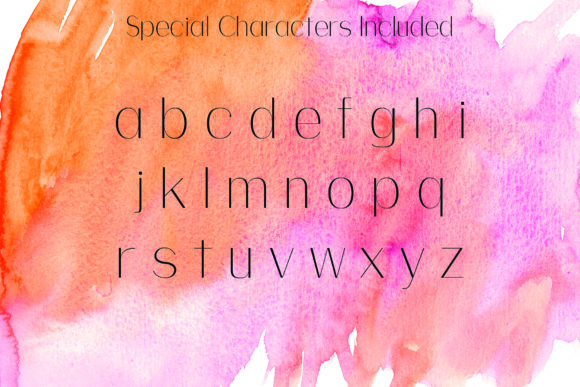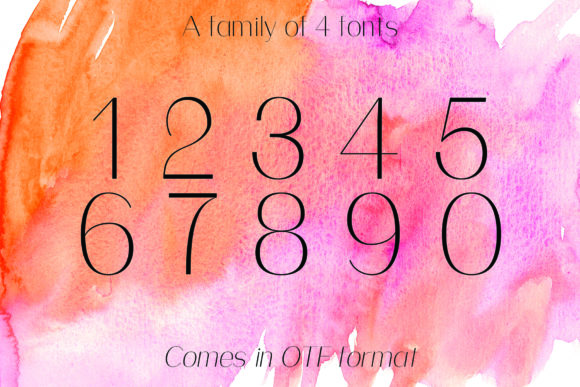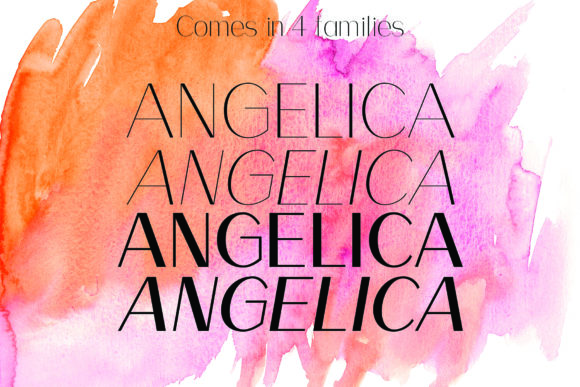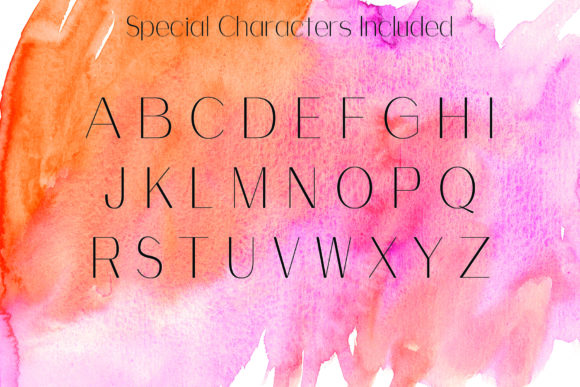
Discover the Elegance of Angelica Font: A Modern Design Essential
In the world of typography, few fonts manage to strike a balance between simplicity and elegance as effortlessly as Angelica Font. This modern font has been making waves in the design community for its clean lines, sophisticated look, and versatility. Whether you’re a professional designer working on a high-profile project or a crafter looking to add a touch of class to your DIY endeavors, Angelica Font is an excellent choice. In this article, we’ll delve into the characteristics that make Angelica Font stand out and explore how it can elevate your design projects.
The Essence of Angelica Font
Angelica Font is characterized by its simple yet elegant design. It embodies a modern style that is both cool and approachable, making it perfect for a wide range of applications. From digital media to print, Angelica Font brings a level of sophistication that can enhance any design project. Its clean lines and uncluttered appearance make it highly legible, ensuring that your message is conveyed clearly and effectively.
Key Features of Angelica Font
- Modern Aesthetic: Angelica Font boasts a contemporary look that fits well with current design trends. Its sleek and streamlined design makes it an excellent choice for projects that require a modern touch.
- Versatility: One of the standout features of Angelica Font is its versatility. It can be used in a variety of contexts, from headings and titles to body text, without losing its impact or readability.
- Elegance: Despite its simplicity, Angelica Font exudes elegance. Its refined appearance makes it suitable for projects that demand a high level of sophistication, such as luxury branding or high-end product packaging.
- Legibility: The font’s clear and uncomplicated design ensures high legibility, making it an excellent choice for both digital and print media.
Applications of Angelica Font
Angelica Font’s adaptability and stylish appearance make it suitable for a wide range of design projects. Here are some of the areas where Angelica Font truly shines:
- Branding and Logo Design: For businesses looking to create a modern and sophisticated brand image, Angelica Font can be a valuable asset. Its elegant appearance can help convey a sense of luxury and professionalism.
- Web Design: In the digital realm, Angelica Font can enhance the user experience with its clean and readable design. It’s perfect for website headers, titles, and even body text where clarity is key.
- Print Design: Whether you’re working on brochures, posters, or business cards, Angelica Font can add a touch of elegance to your print materials. Its versatility ensures that it can be used for both headings and body text.
- Crafting and DIY Projects: For crafters and DIY enthusiasts, Angelica Font can be a great addition to handmade cards, journals, and other creative projects. Its modern style can help add a professional touch to your crafts.
Tips for Using Angelica Font Effectively
To make the most of Angelica Font, consider the following tips:
- Pair with Complementary Fonts: While Angelica Font is elegant on its own, pairing it with complementary fonts can enhance its impact. Look for fonts that contrast with Angelica’s sleek design to create visual interest.
- Experiment with Sizes and Weights: Don’t be afraid to experiment with different sizes and weights of Angelica Font. Using various weights can help create a hierarchy in your design and draw attention to key elements.
- Consider the Context: Always consider the context in which Angelica Font will be used. Ensure that it aligns with the overall aesthetic and tone of your project.
| Font Name | Angelica Font |
| Author | denestudios |
Angelica Font is a versatile and elegant typeface that can add a modern touch to any design project. Its simplicity, combined with its sophisticated appearance, makes it an excellent choice for designers and crafters alike. Whether you’re working on a professional project or a personal DIY endeavor, Angelica Font is sure to enhance your design with its cool and elegant style. By incorporating Angelica Font into your projects, you can achieve a level of sophistication and modernity that sets your work apart.
So, the next time you’re looking for a font that embodies modern elegance and versatility, consider giving Angelica Font a try. Its impact on your design could be more profound than you imagine.